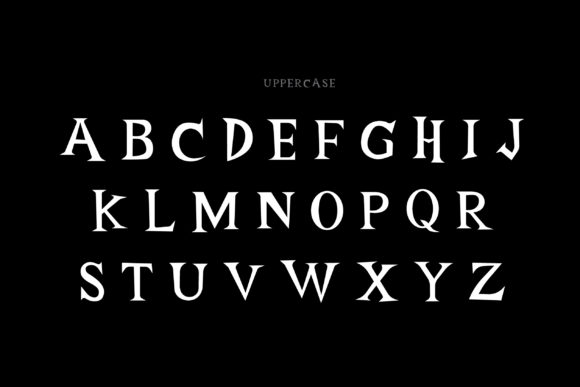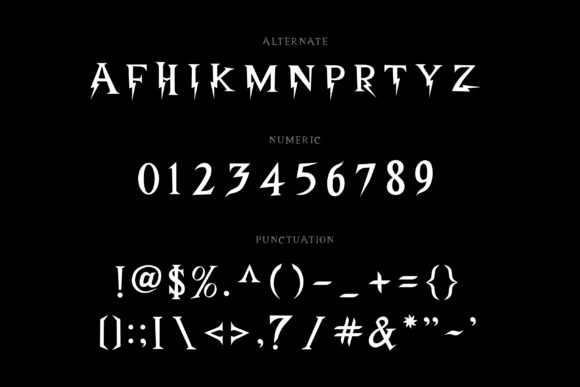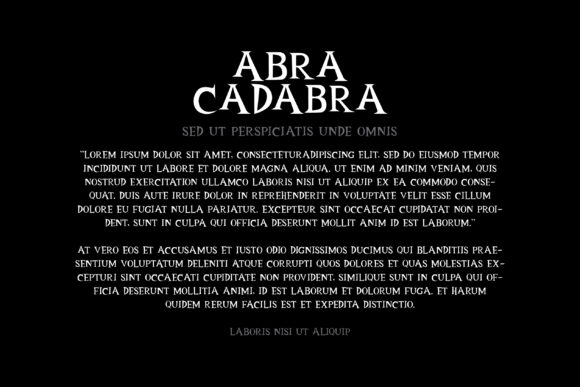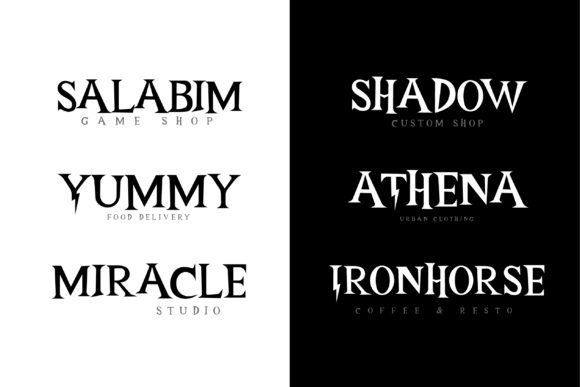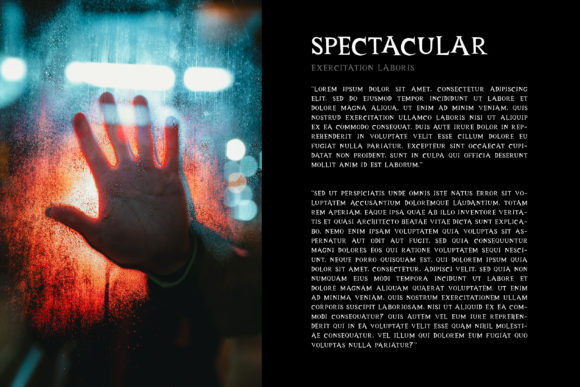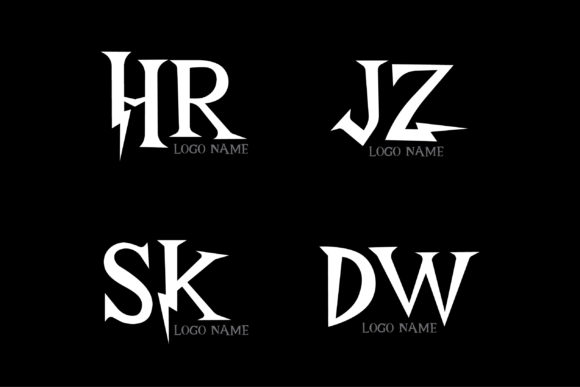
Introduction to Magic Wonderland Font
Magic Wonderland is an incredibly unique and beautiful serif font.
Key Features of Magic Wonderland Font
Why Choose Magic Wonderland Font?
Magic Wonderland Font offers exceptional quality and versatility, making it a valuable addition to your design toolkit. Whether you’re creating for personal projects or commercial use, Magic Wonderland Font delivers professional results.